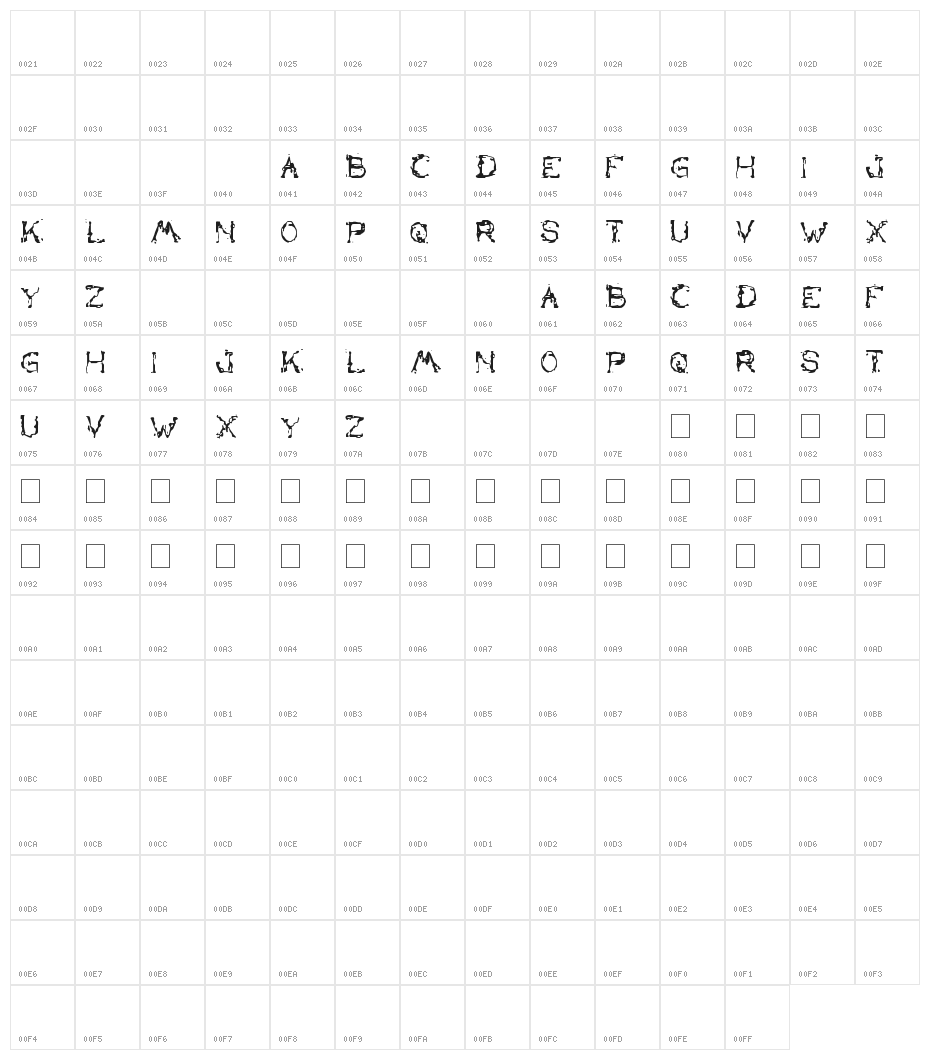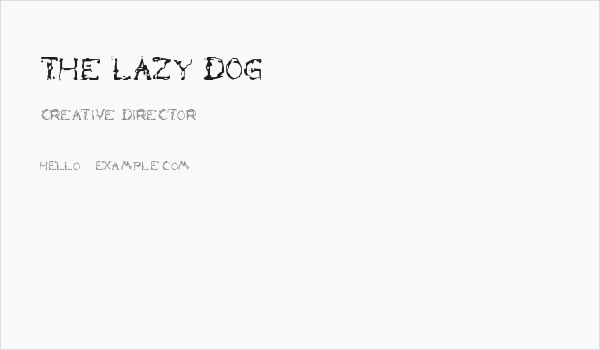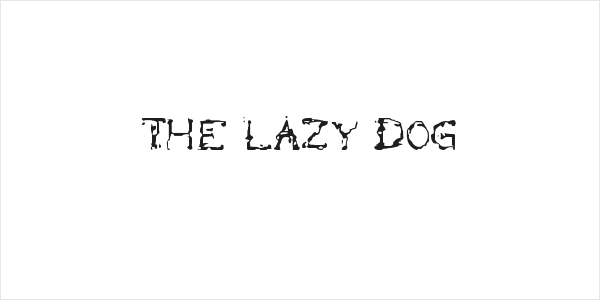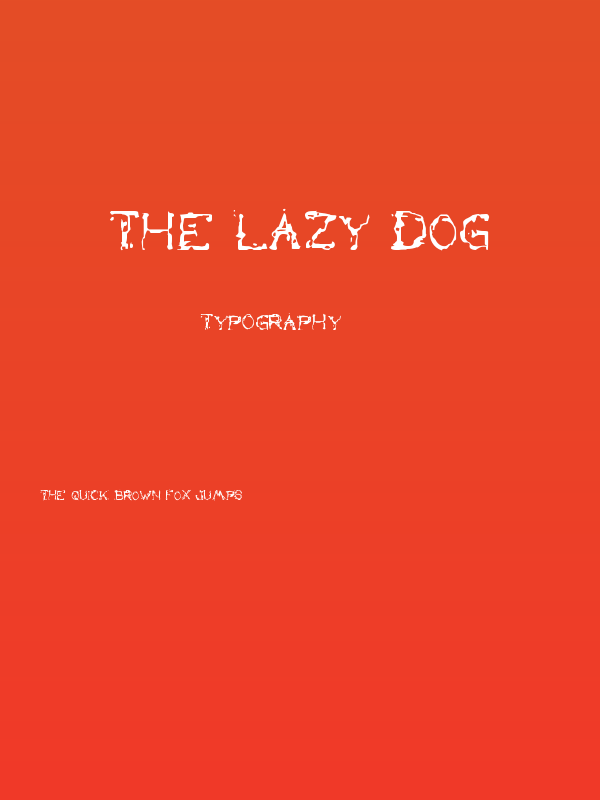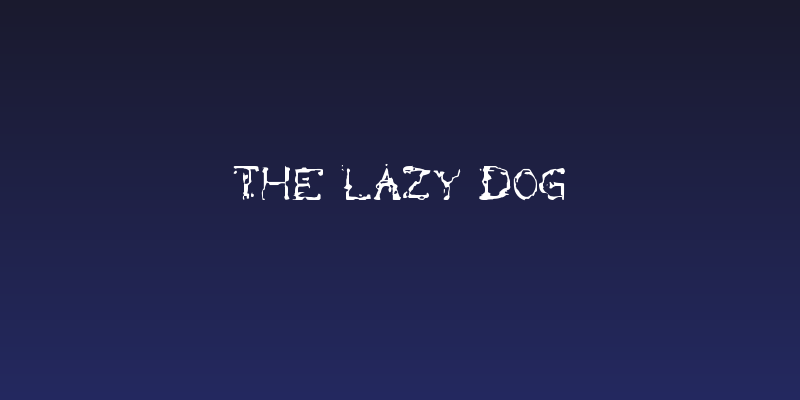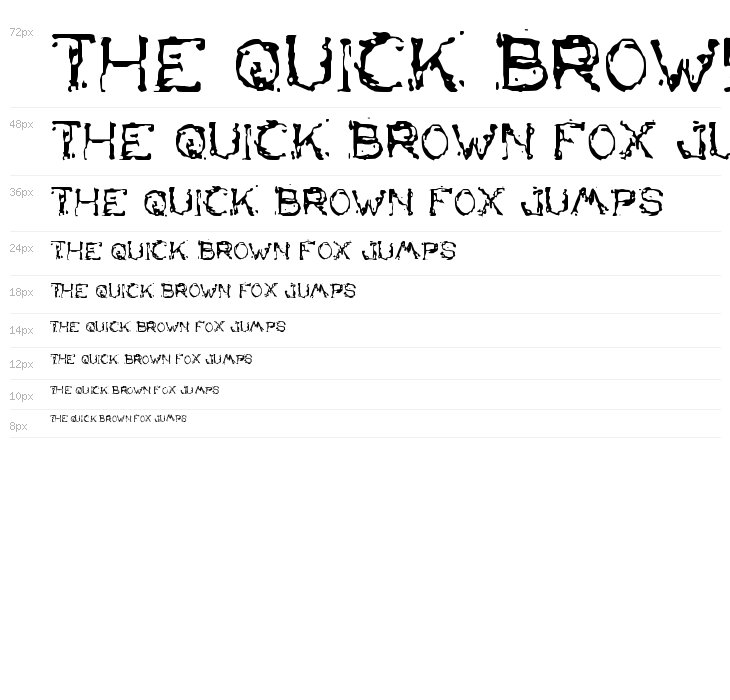
the lazy dog Font
the lazy dog Description
This font features a distressed and grungy appearance, with irregular edges and a textured look that mimics the effect of ink splatters or erosion. The characters are bold and have a hand-drawn quality, giving them a unique and artistic flair. The uppercase letters are consistent in height, while the overall style maintains a sense of chaos and unpredictability. This font is ideal for projects that require a raw and edgy aesthetic, such as music album covers, posters, or urban-themed designs. Its distinctive style makes it stand out, capturing attention with its unconventional and bold presentation.
| Overall Style | Grungy, Artistic, Distressed |
| Proposed Projects | Ideal for music album covers, posters, urban-themed designs, and artistic projects. |